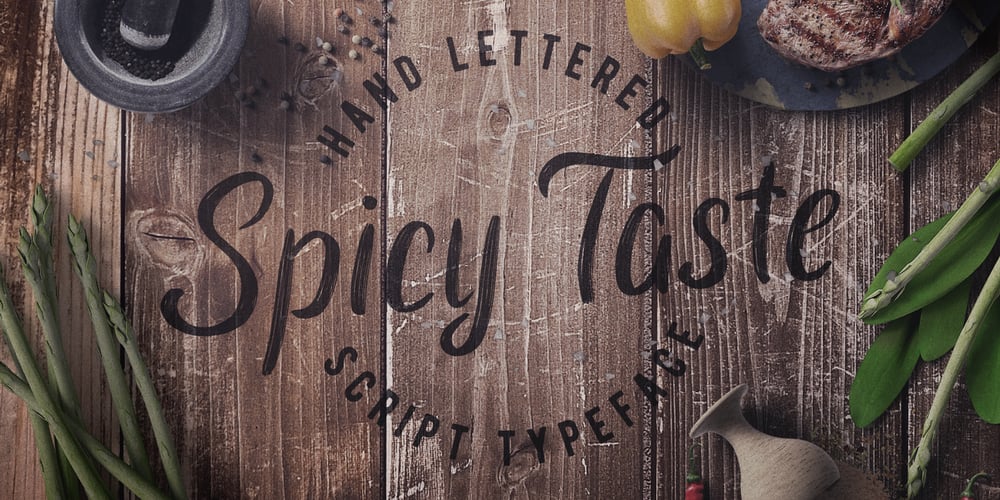
Spicy Taste Font Family was designed by Oleg Voznyy and published by Vozzy. Spicy Taste contains 1 styles and family package options. A new script label typeface named Spicy Taste. This typeface contents caps and small letters, numbers, punctuation signs and some alternates for small letters. This is a handwritten brush font with authentic dry brush strokes like drawn on paper.